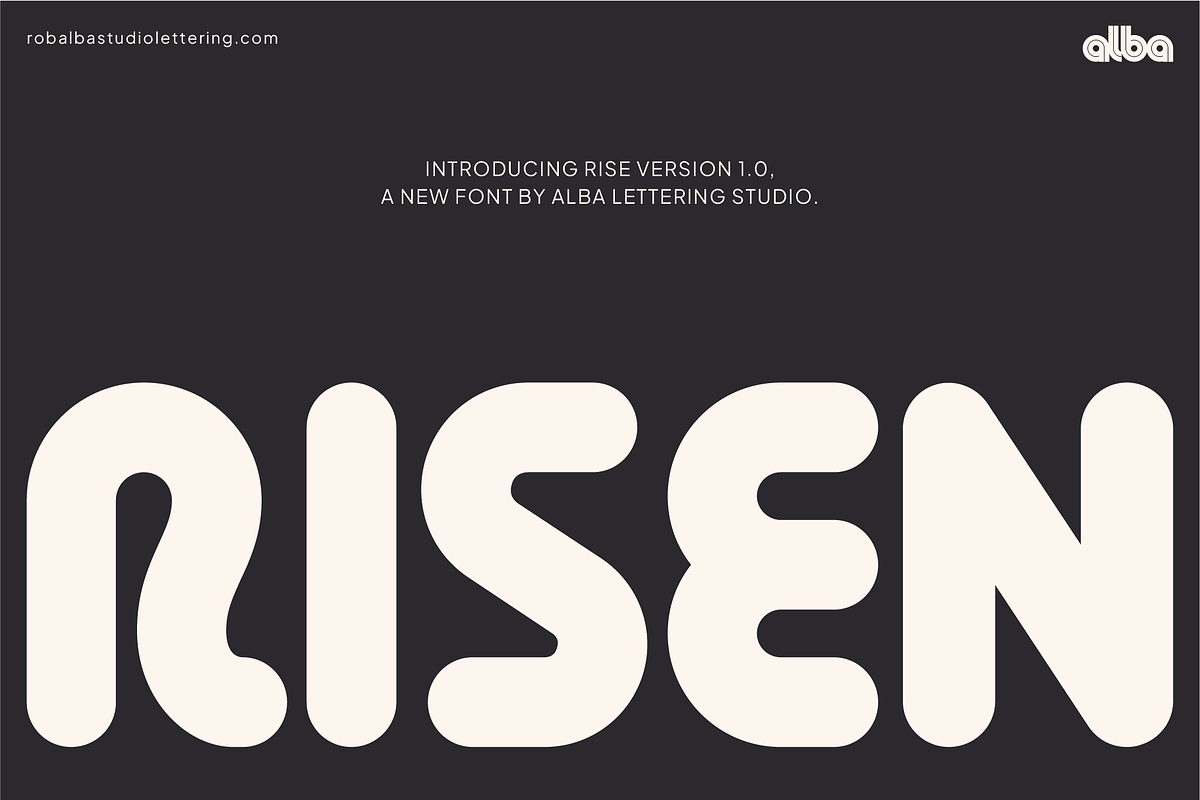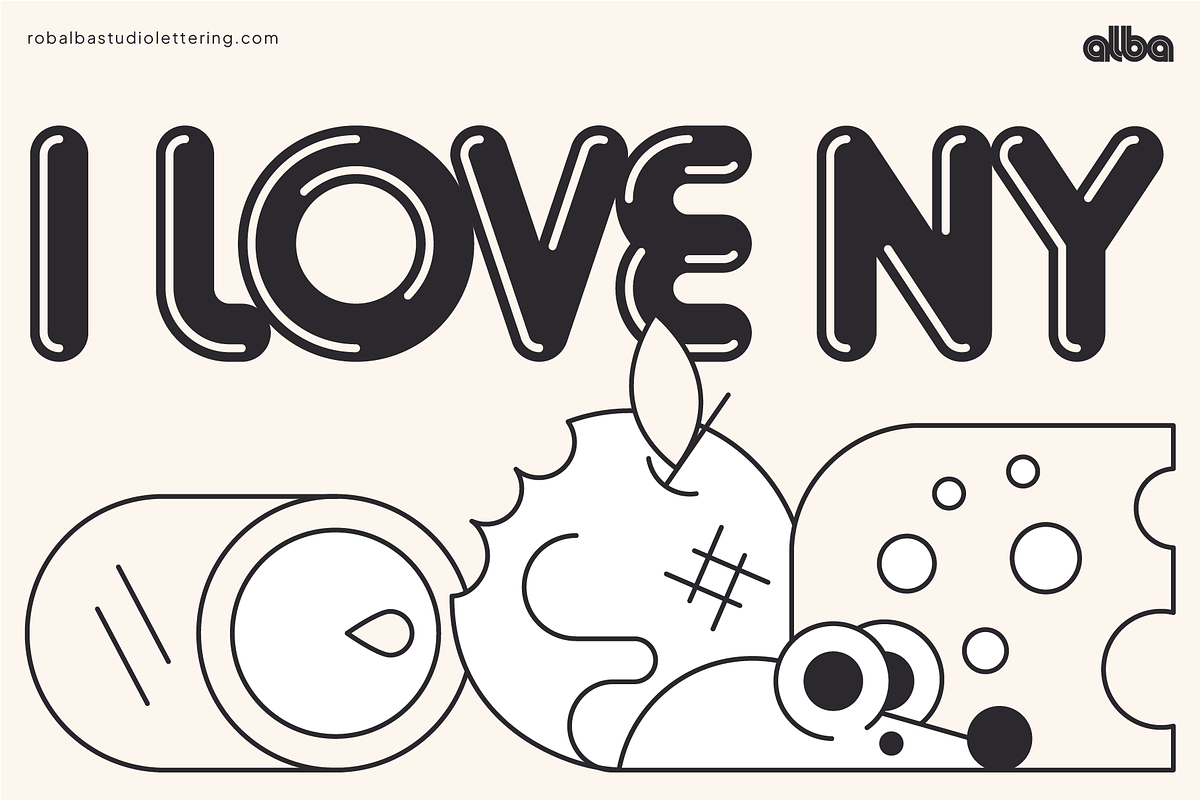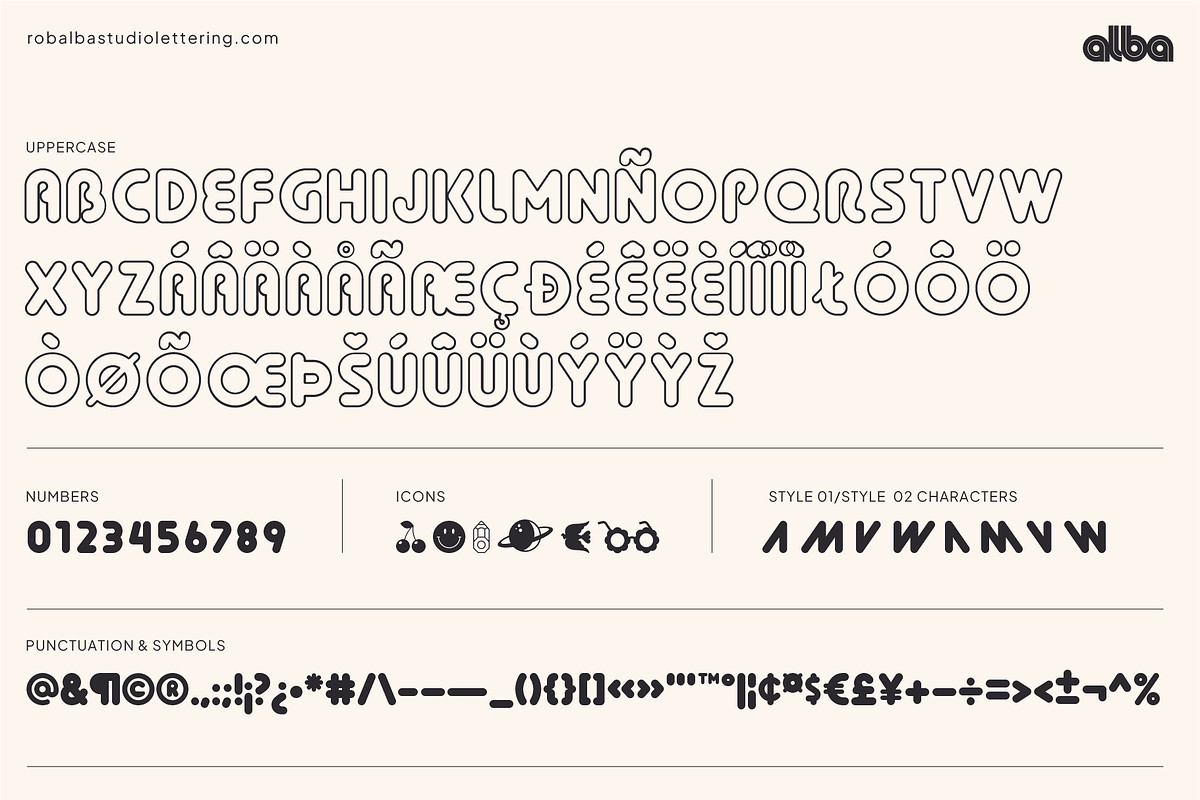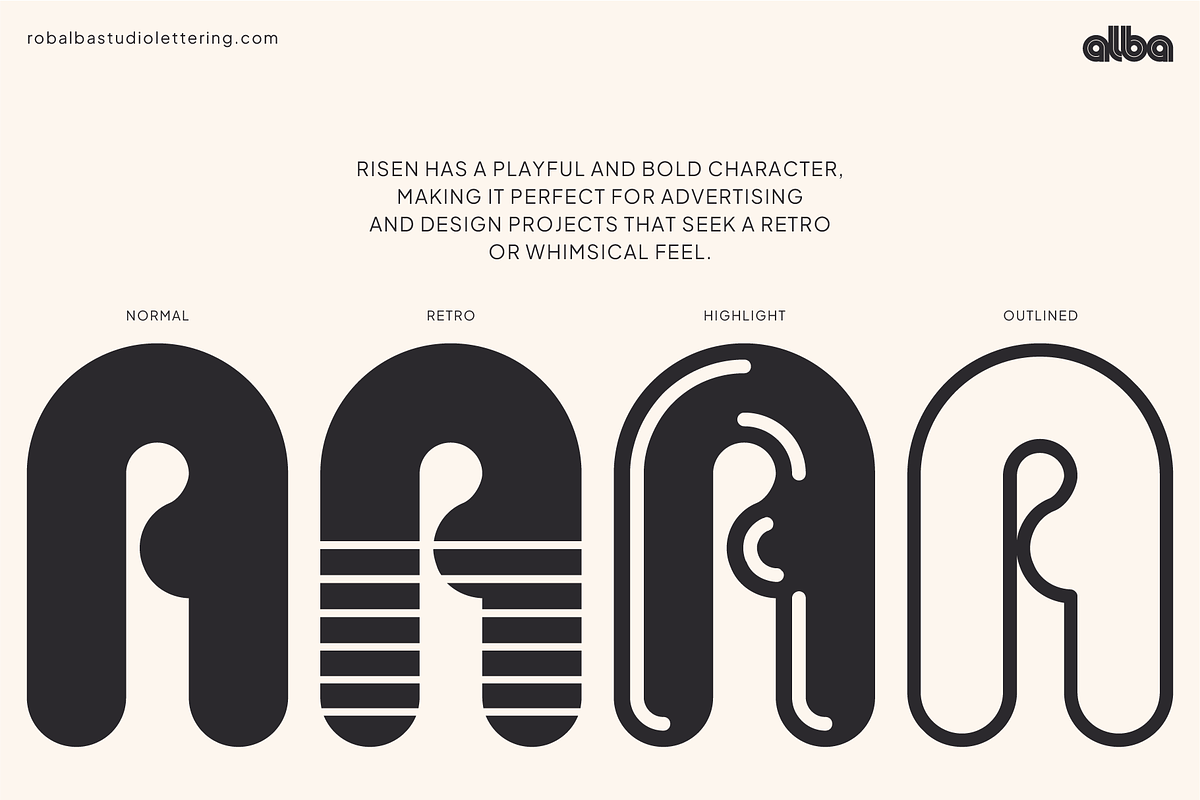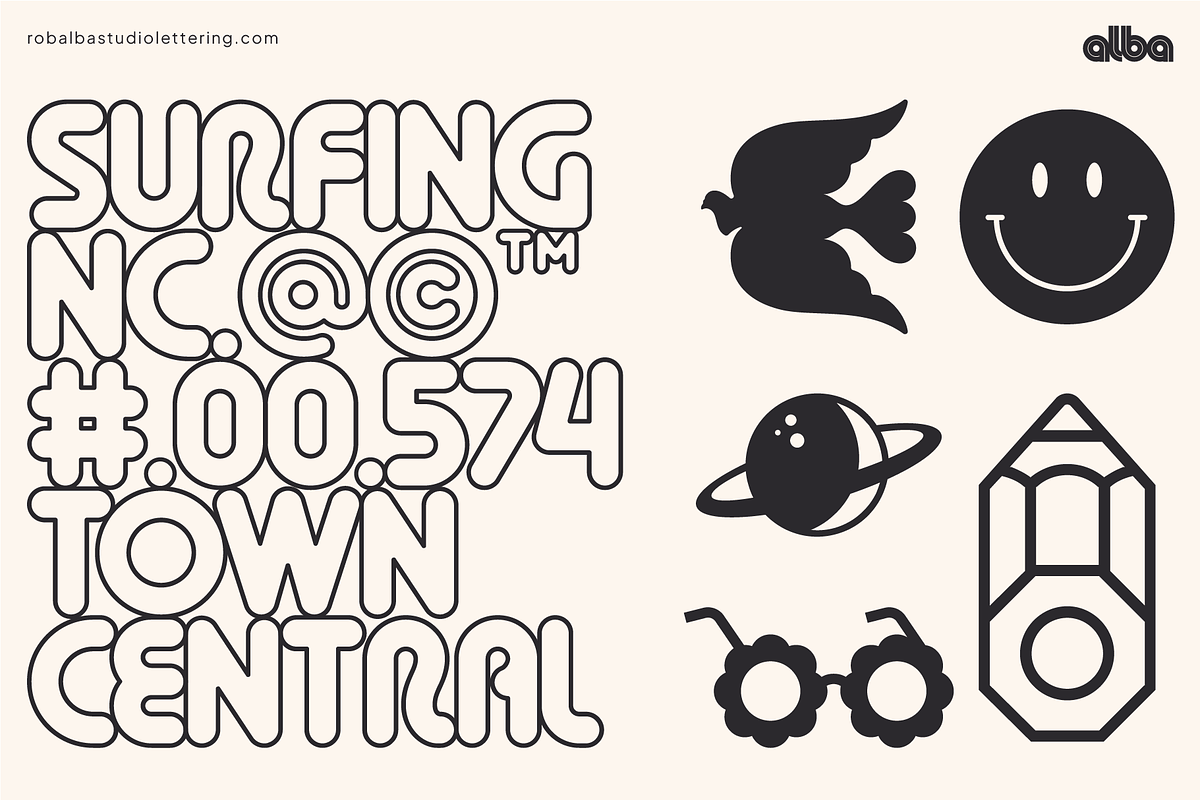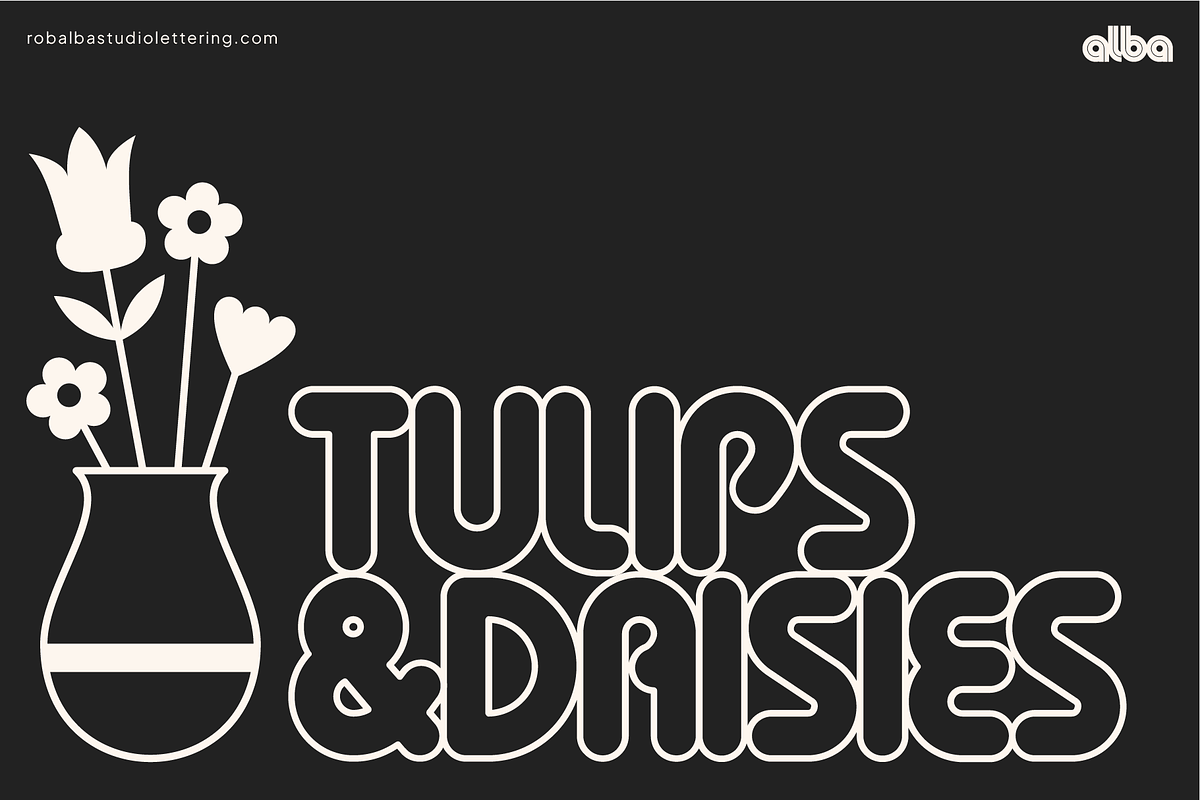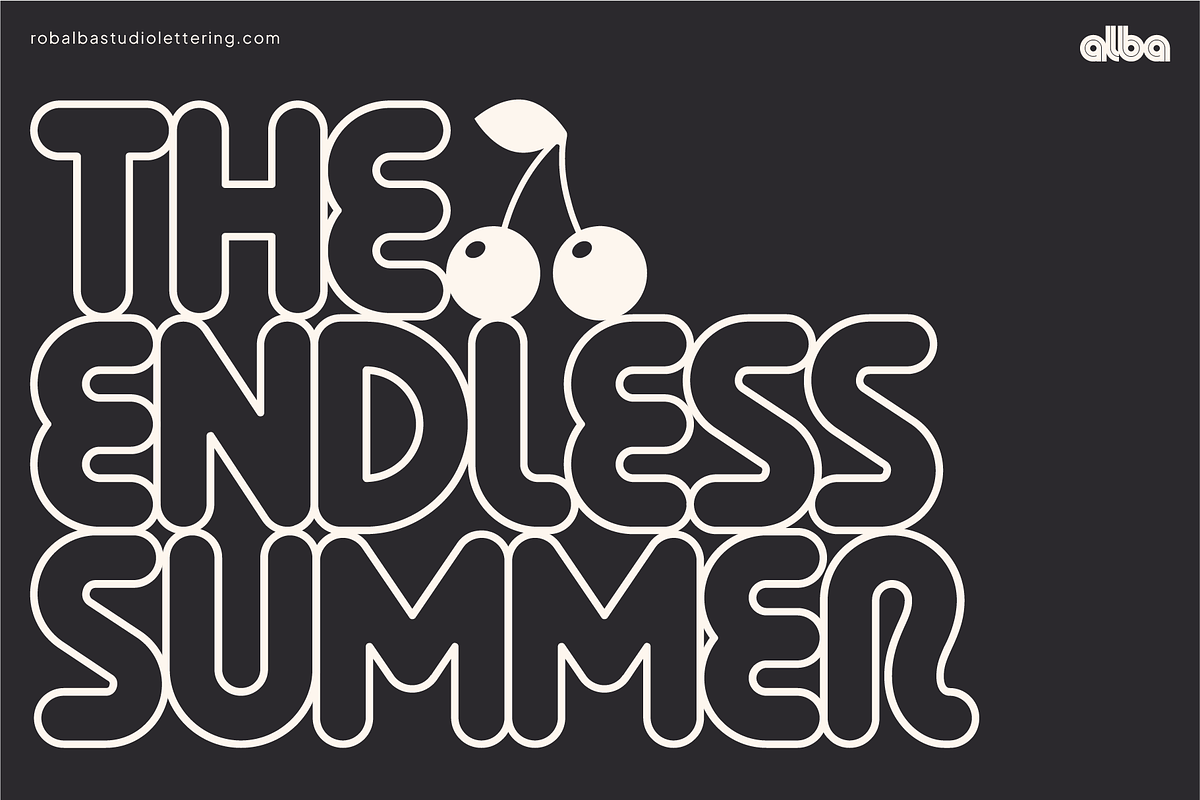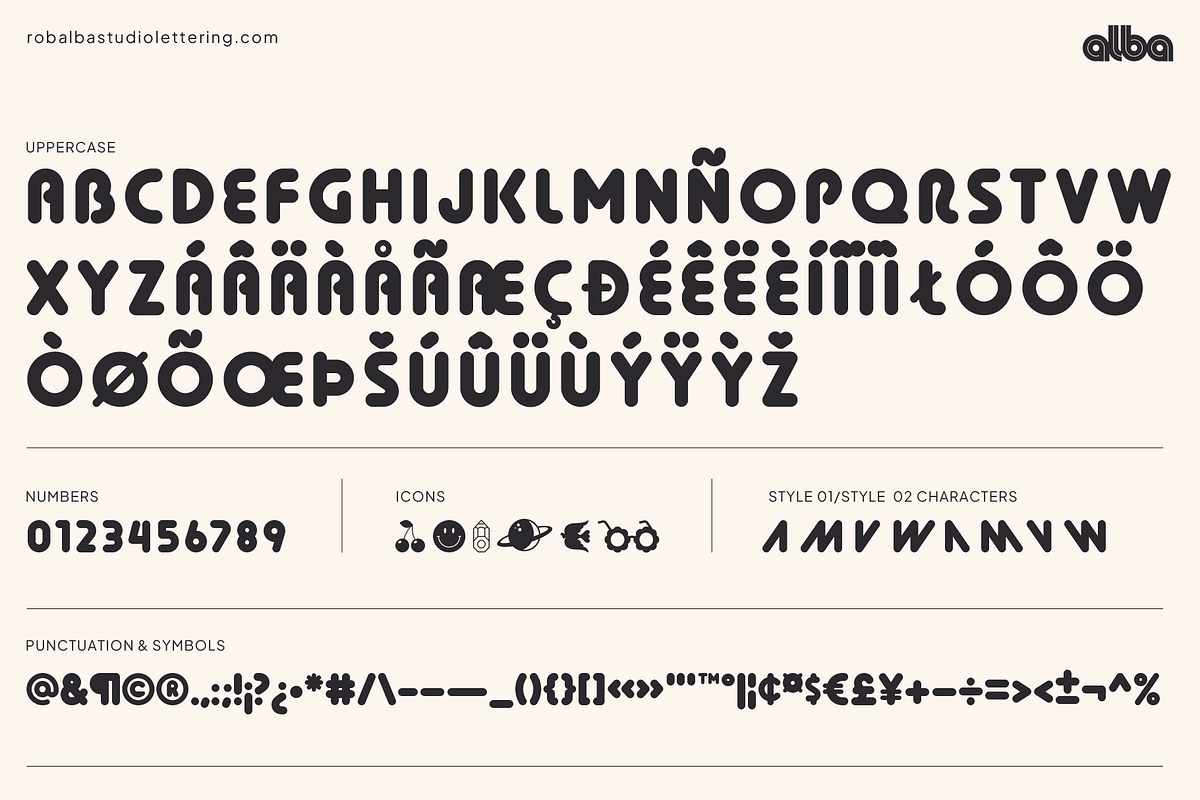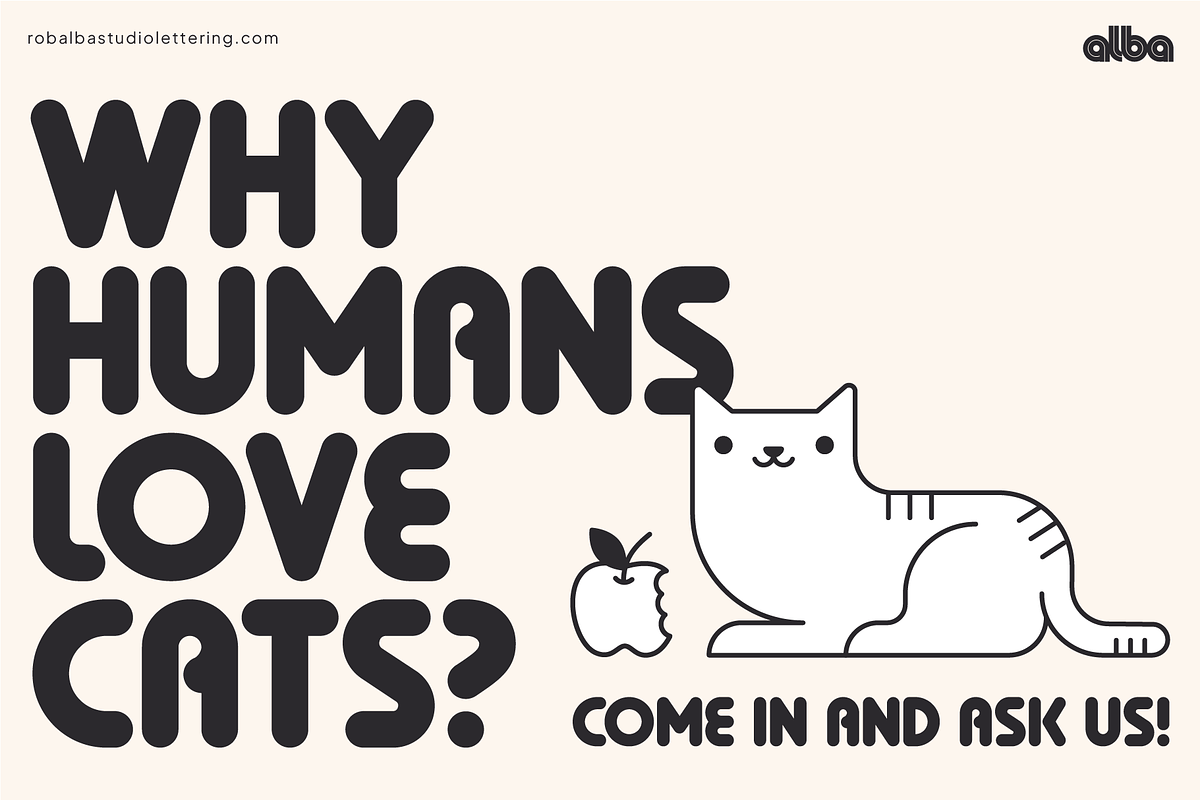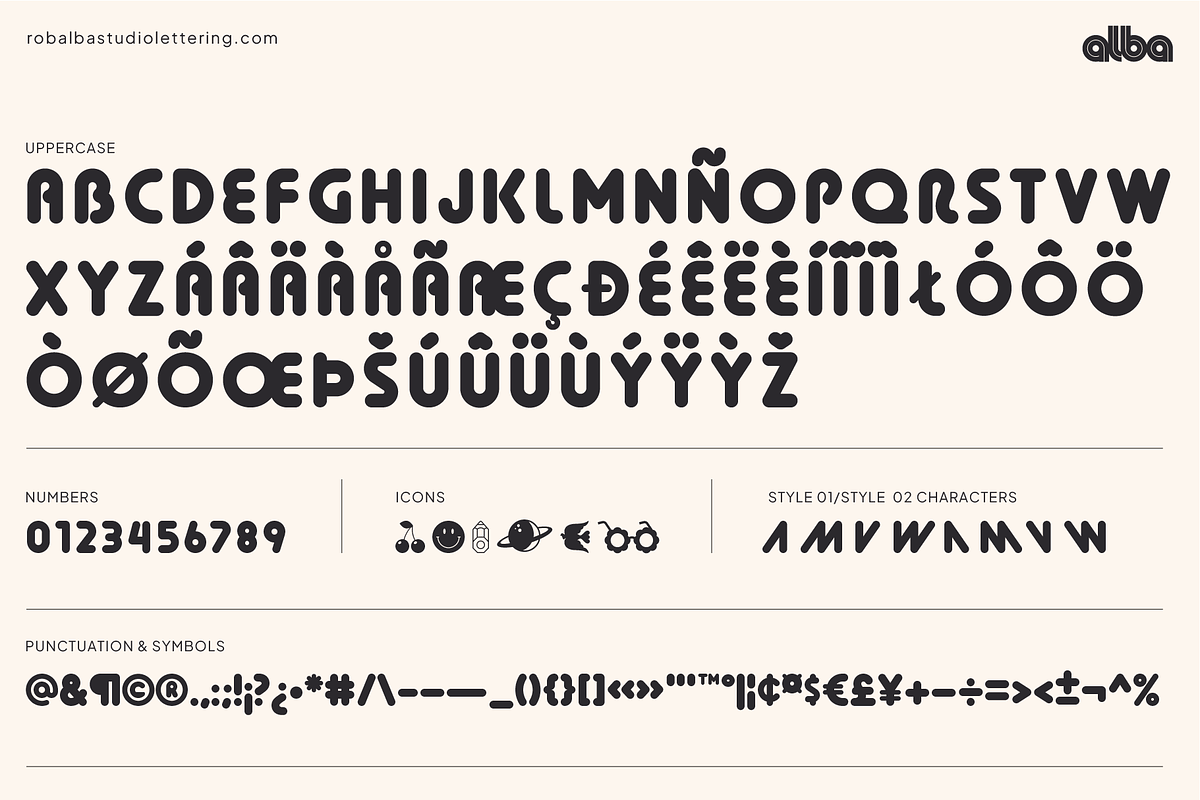
Risen Rounded
Introducing RISEN Version 1.0, a new font by Rob Alba. Risen has a playful and bold character, making it perfect for advertising and design projects that seek a retro or whimsical feel.
Key Characteristics:
Bold and Rounded: Risen is known for its thick, rounded letters, which give it a friendly and approachable appearance.
Retro Style: The font has a distinctly 60s and 70s vibe, reminiscent of the period's design aesthetics.
Versatility: Despite its playful nature, Risen is quite versatile and can be used for a variety of design purposes, including logos, posters, packaging, and more.
Risen charm lies in its ability to evoke a sense of nostalgia while remaining relevant in contemporary design projects. Its bold and rounded form makes it particularly effective for creating eye-catching headlines and titles.
Risen has four styles: regular, retro, highlight, and outlined, as well as distinctive, stylish groups and an icon set, perfect for achieving creative and inspiring layouts.